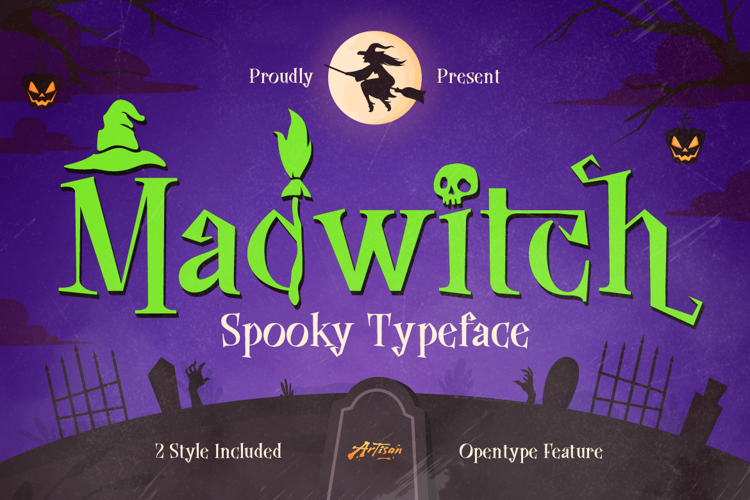
Madwitch Font
Boo! It's that time of the year again! Madwitch is here to haunt your designs in the best way possible. With its playful hand-lettered feel and slightly crooked, dripping-candle energy, this display font brings all the witchy, spooky vibes without being too scary. Think fun spooky, not nightmare spooky.
Perfect For:
- Halloween party invitations & flyers
- Spooky season social media graphics
- T-shirt & merch designs
- Witchy branding & packaging
- Trick-or-treat signage
- Kids' Halloween activity books
- Pumpkin patch & haunted house promos
- Greeting cards & gift tags